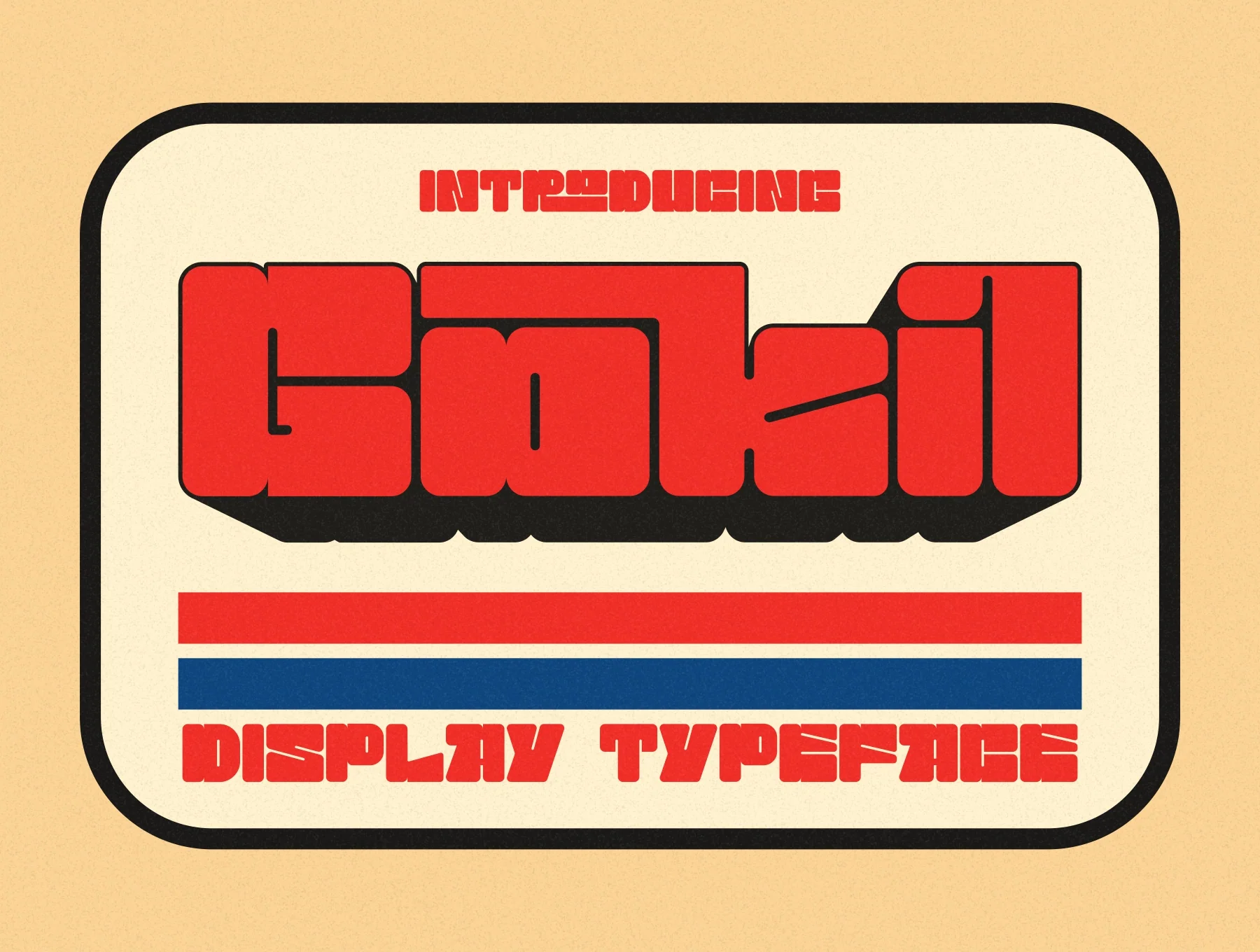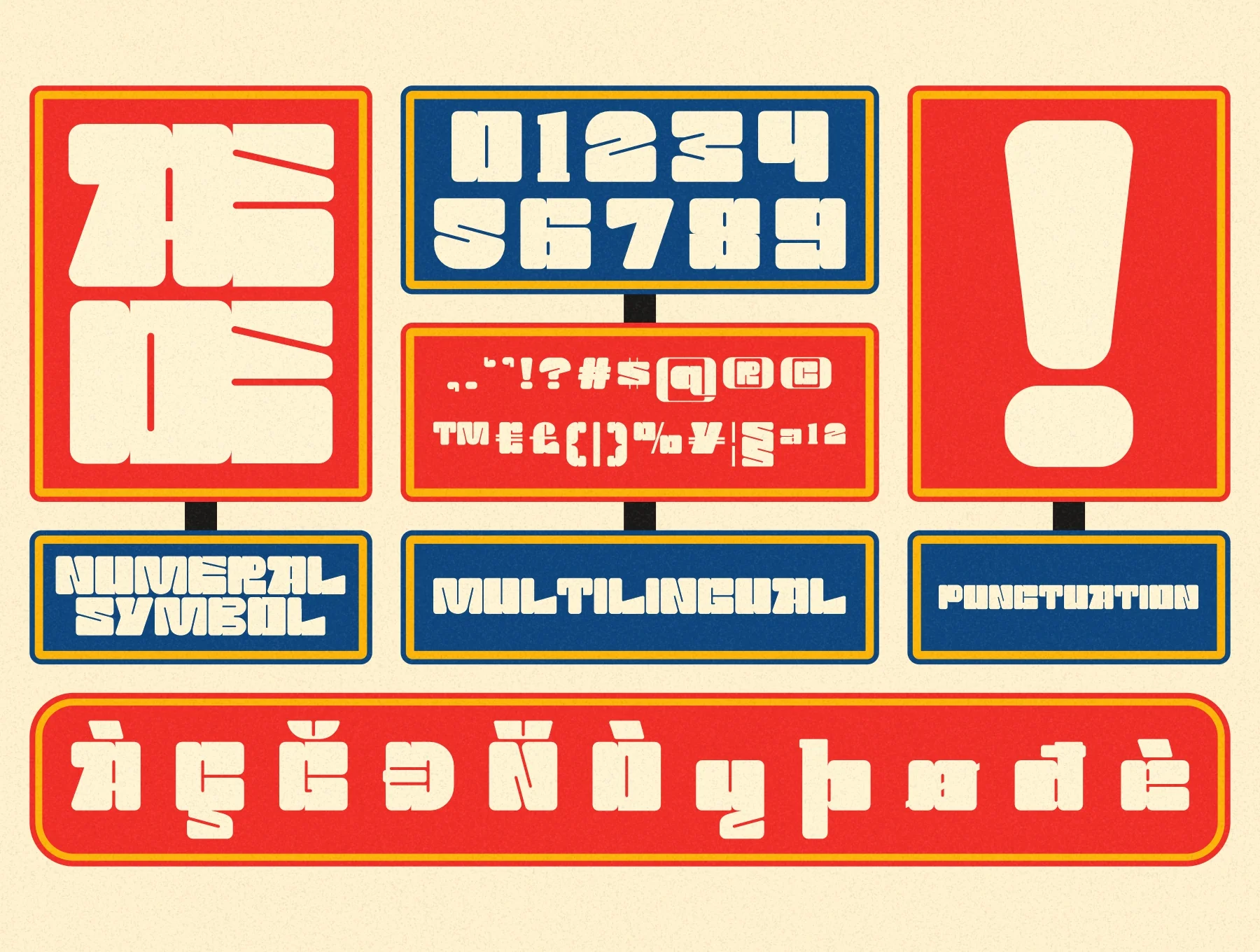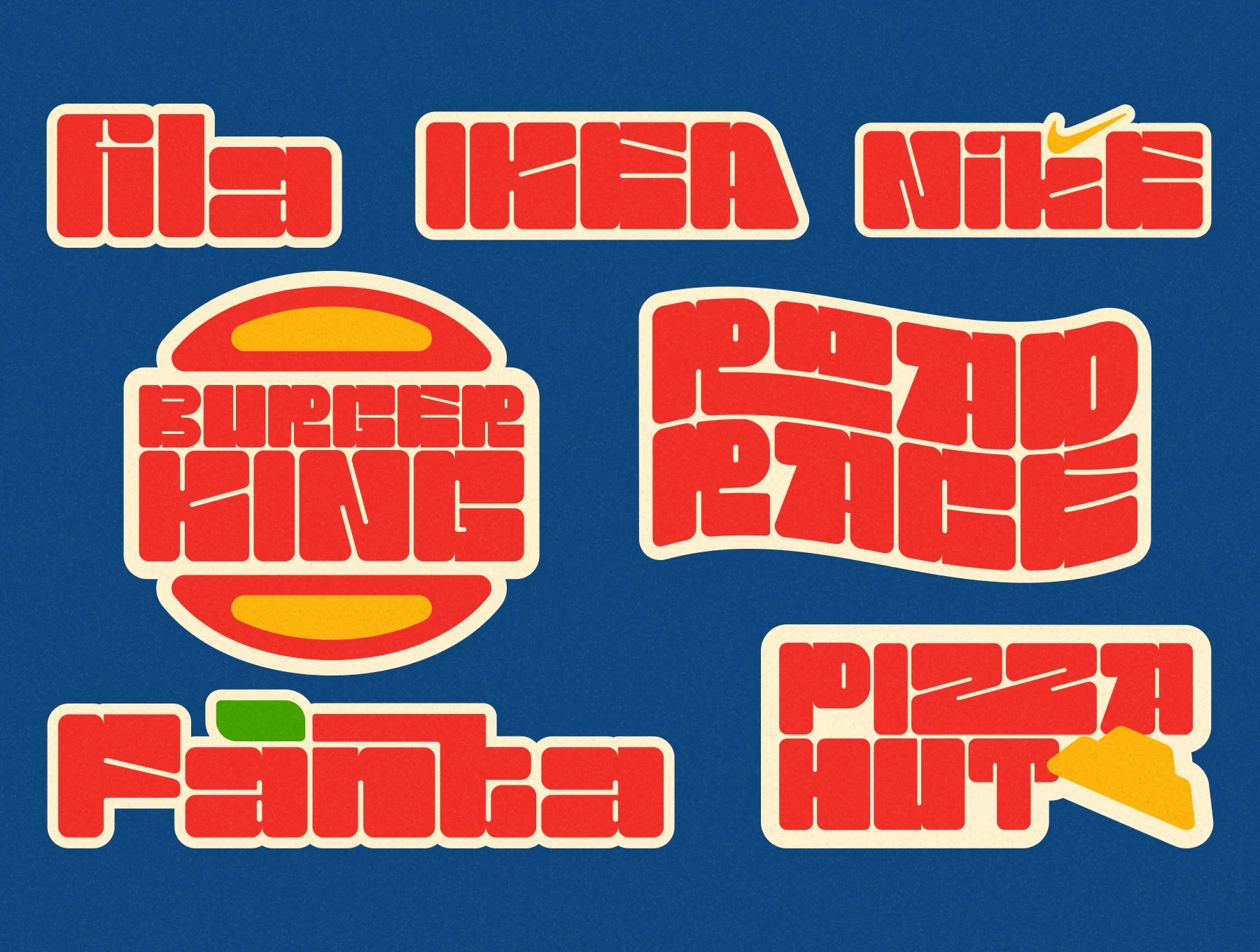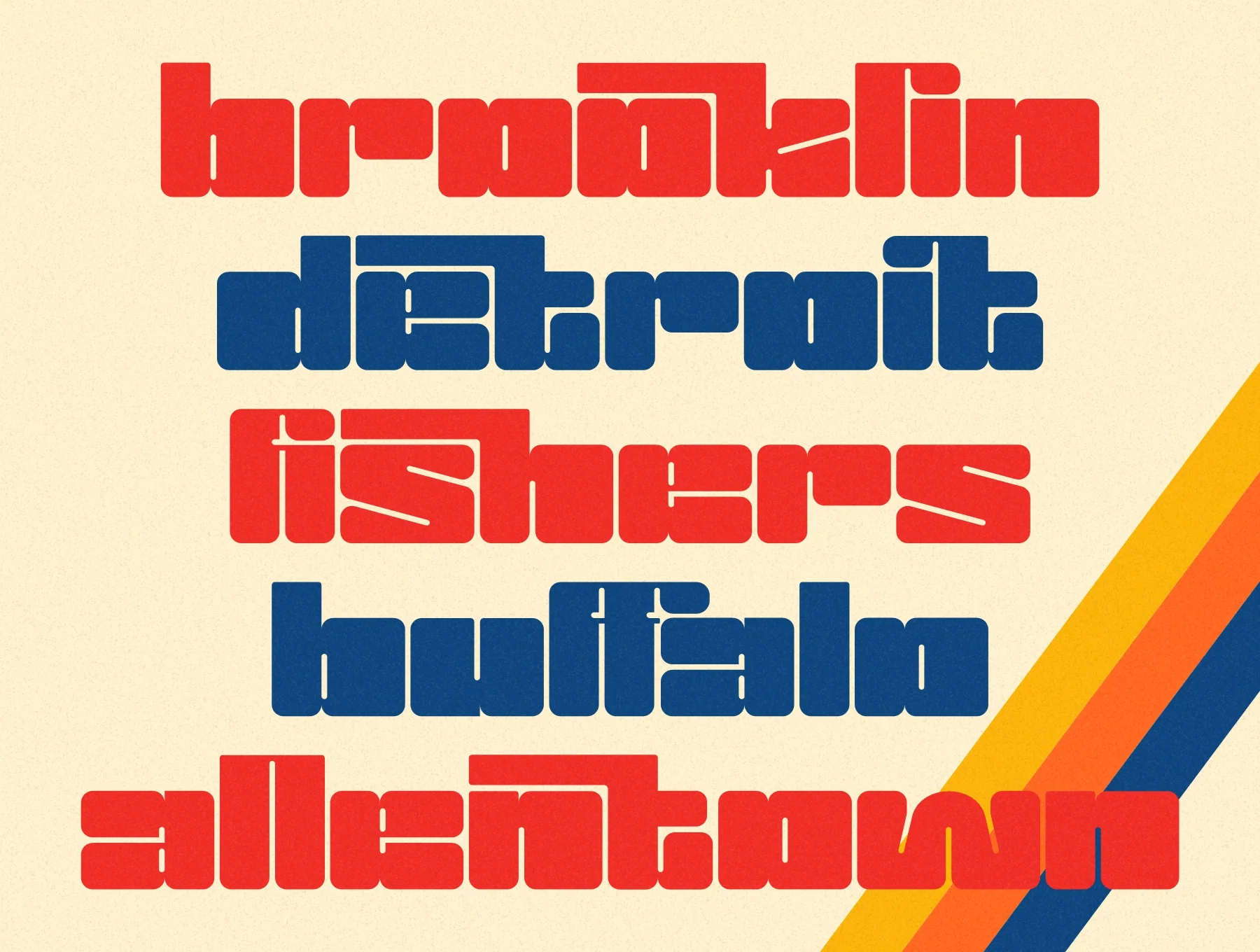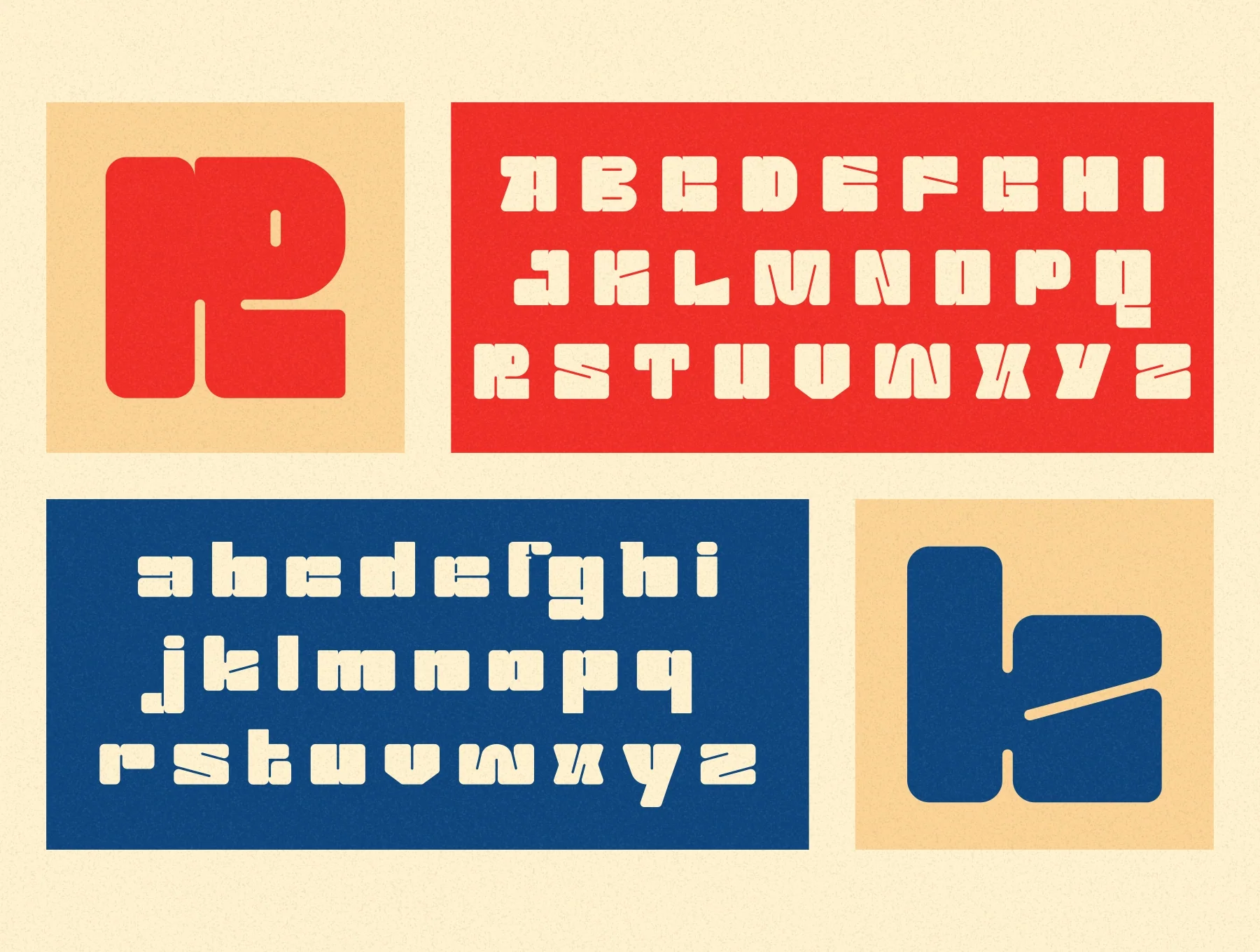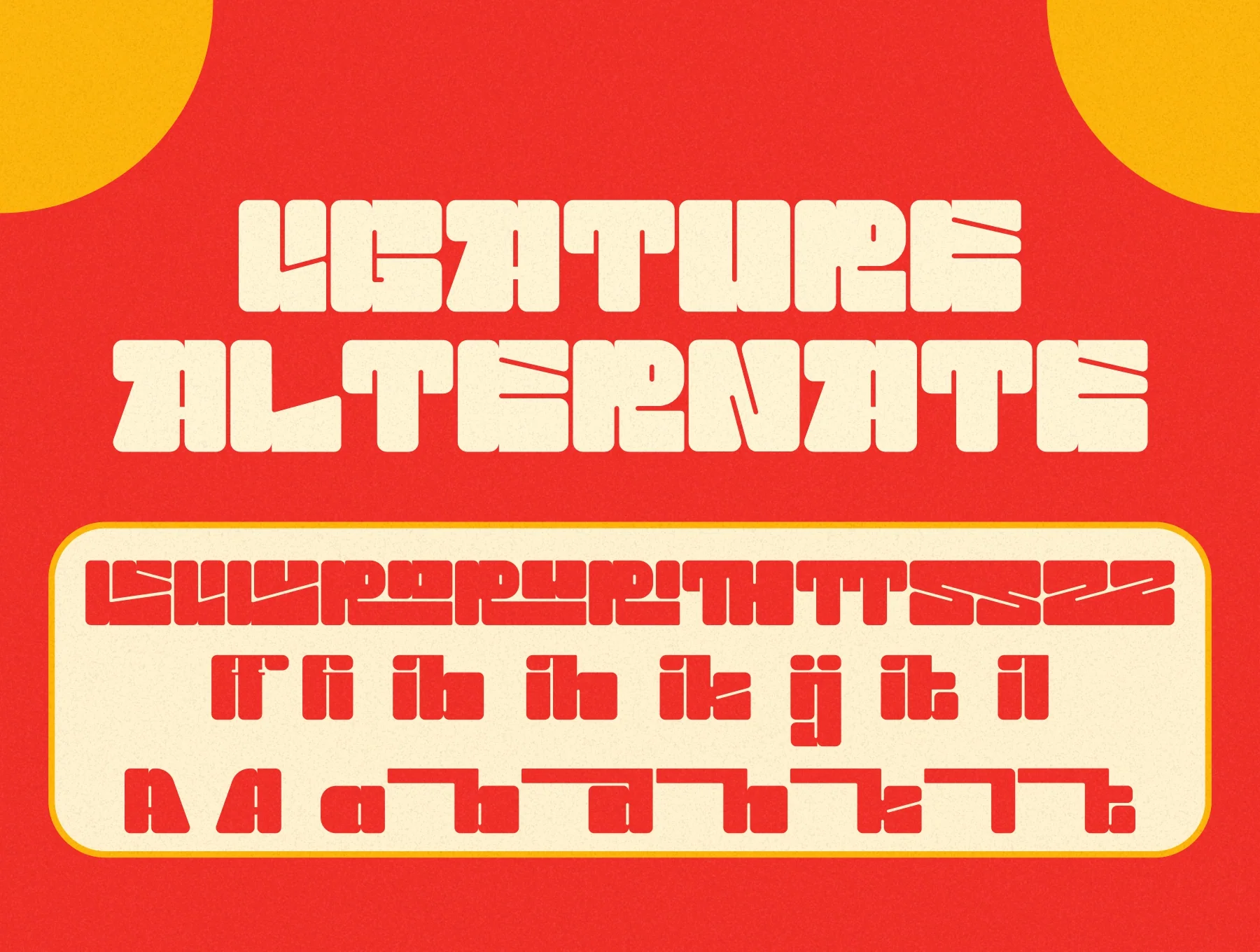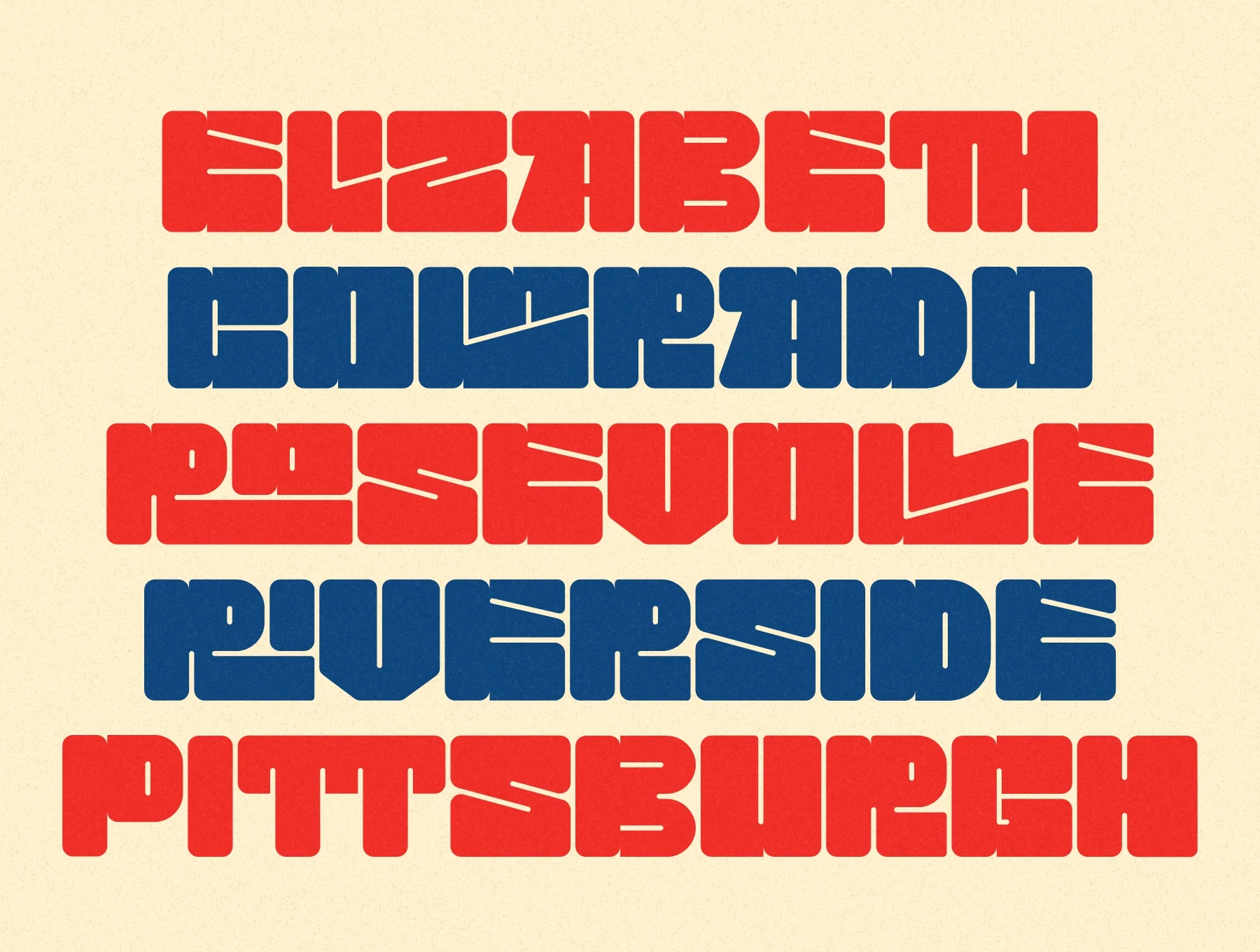
Gokil - Display Typeface
Gokil distinctive bold display typeface
Classic glyph style
Normal weight
Supports several languages
Numbers and punctuation
Gokil is a distinctive bold display typeface with soft rounded corners. Ideal for retro, vintage, or hipster visuals, it suits branding, posters, logos, magazines, headlines, stickers, and more. Includes alternates and ligatures.